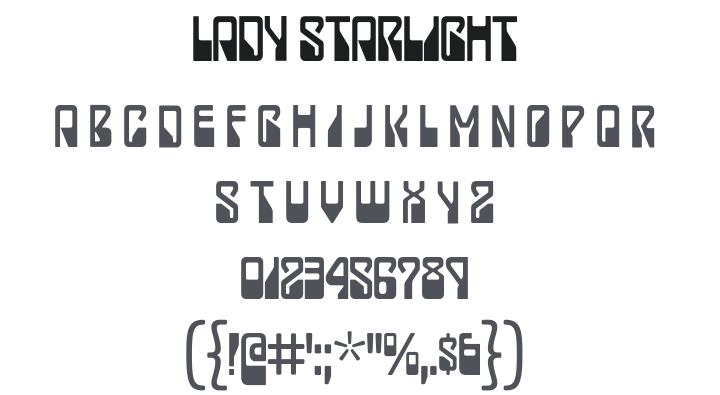
Lady Starlight Font
About Lady Starlight
Lady Starlight is a bold 1970s sci-fi display typeface inspired by the Scorpions band logo and the 1975 Rollerball film poster — its heavy, geometric letterforms are built off the waistline with precise angular shapes that give it a distinctly alien, futuristic character. Perfect for rock band branding, sci-fi movie titles, retro-futuristic posters, and anything needing a powerful, otherworldly voice.